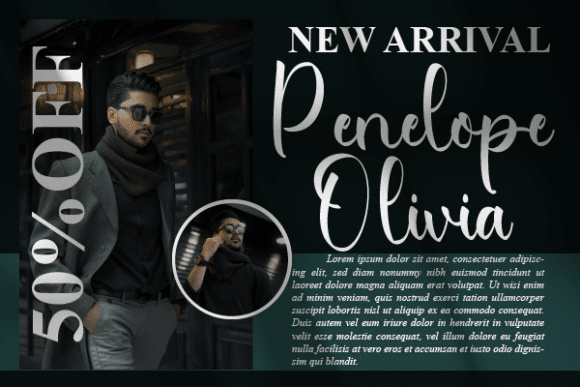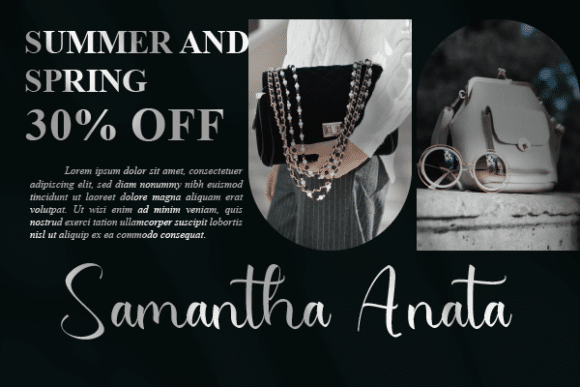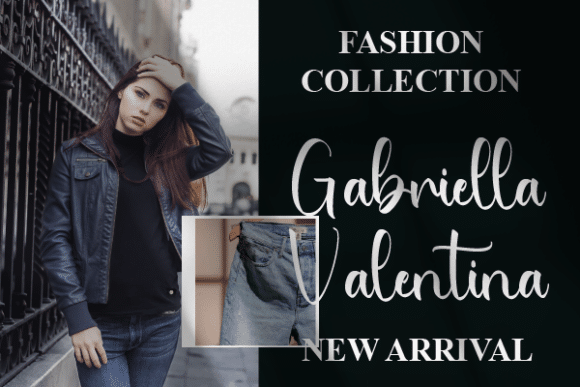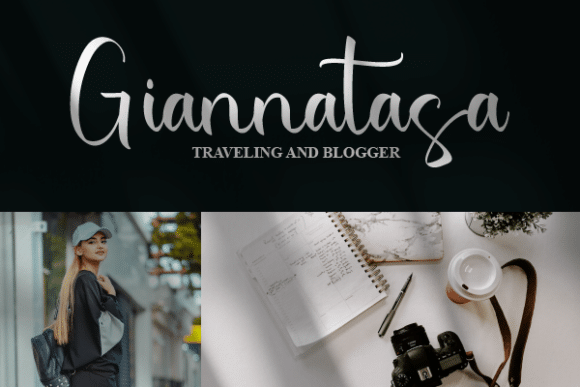
Marly Rosemary Font
Marly Rosemary is a stylish, well-balanced and delicate script font. It looks outstanding for product packaging, branding project, magazine covers, social media, wedding, or just used to express words above the background.